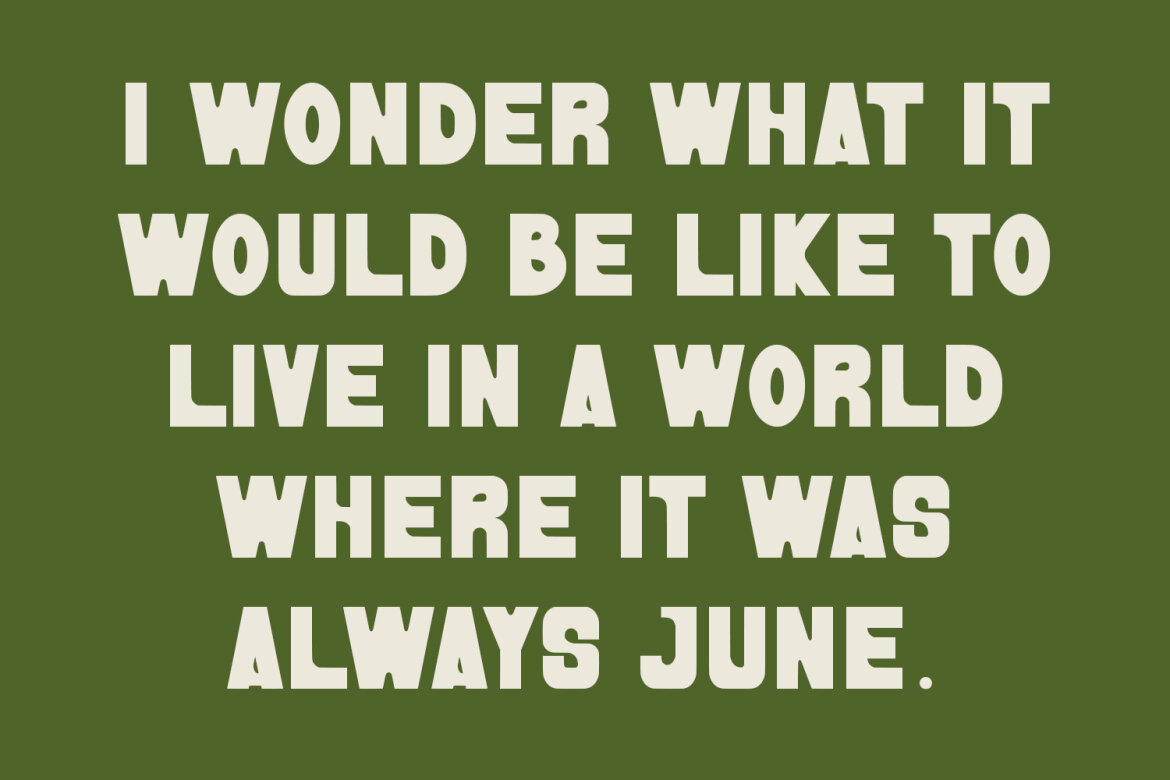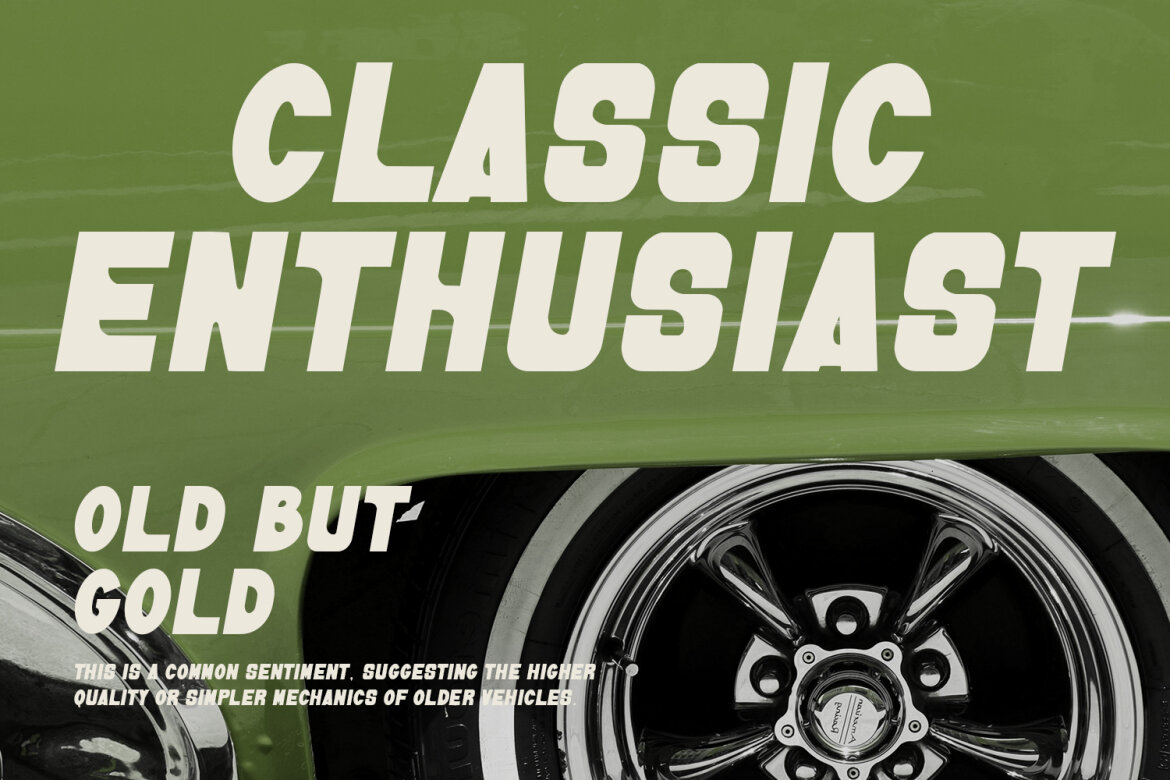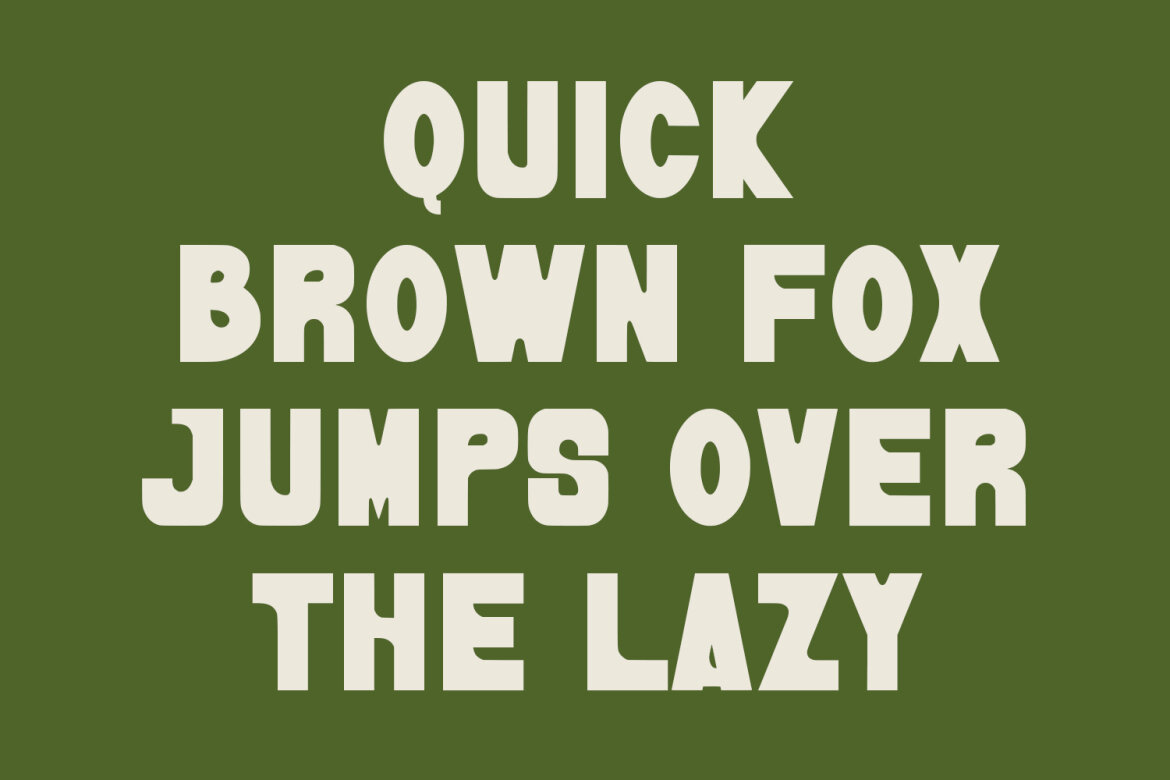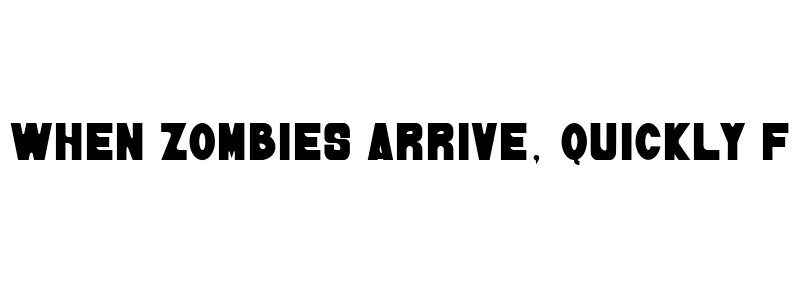
Roolox Sans Hand Drawn FREE Font
Roolox sans hand drawn display font. Fun character with a bit of ligatures. To give you an extra creative work. This font is good for logo design, Social media, Movie Titles, Books Titles, a short text even a long text letter and good for your secondary text font with script or serif. Make a stunning work with Roolox font.